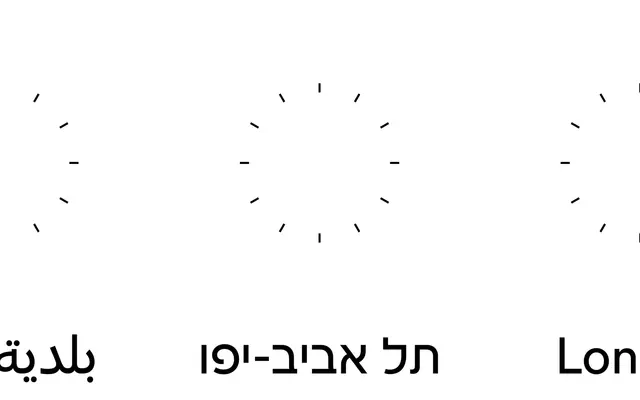
LL Circular
Lineto · Laurenz Brunner · 2013
Laurenz Brunner's geometric grotesque, begun in 2008 and released in 2013, that tempers pure geometry with warmth to produce one of the most widely adopted sans-serifs of the past decade.
Developed over five years before its 2013 release, LL Circular sits in the lineage of Futura and Avenir but departs from strict geometry through carefully judged idiosyncrasies that make it more approachable at text sizes. Eight weights with matching italics cover editorial, advertising and identity work equally well. The family has since expanded to cover Cyrillic, Greek, Hebrew, Arabic, Vietnamese and Devanagari, with additional script collaborators including Ilya Ruderman and Titus Nemeth.
Explicitly designed as a geometric grotesque in the tradition of Futura and Erbar Grotesk, with Brunner evolving the approach from purely geometric to one that incorporates warmth and measured idiosyncrasy by release.